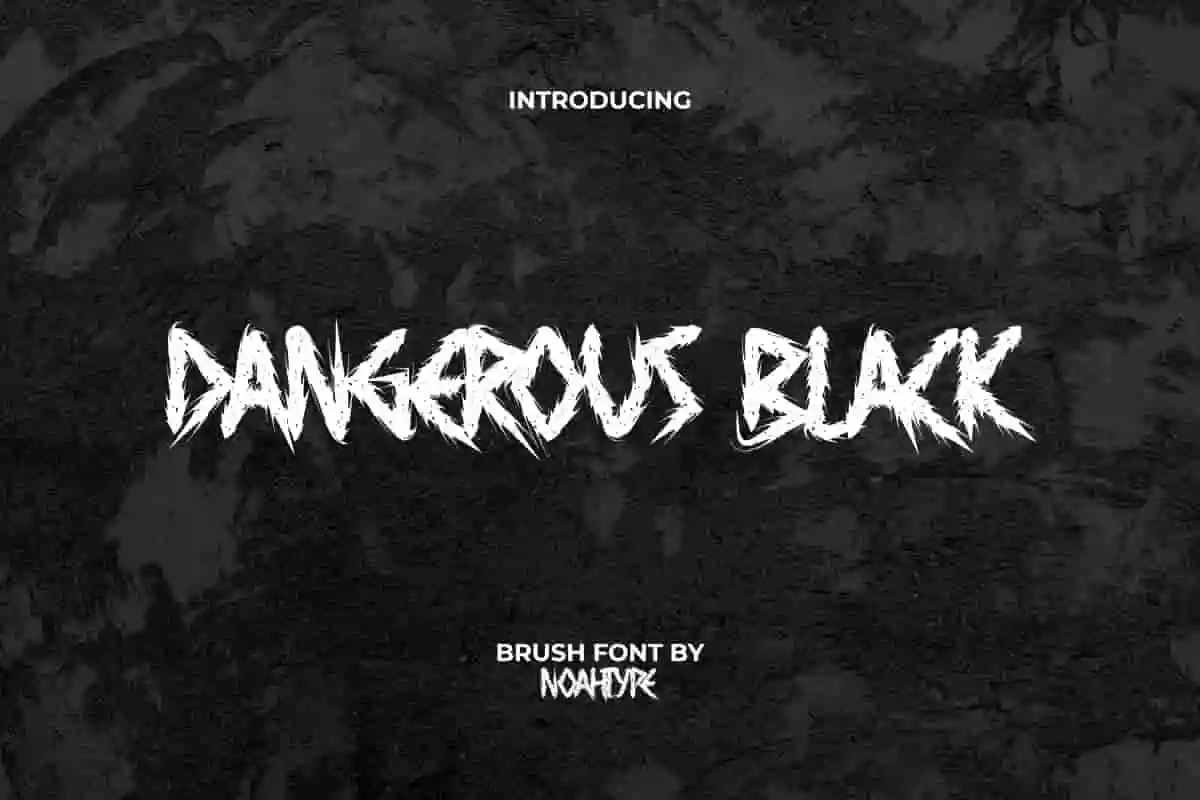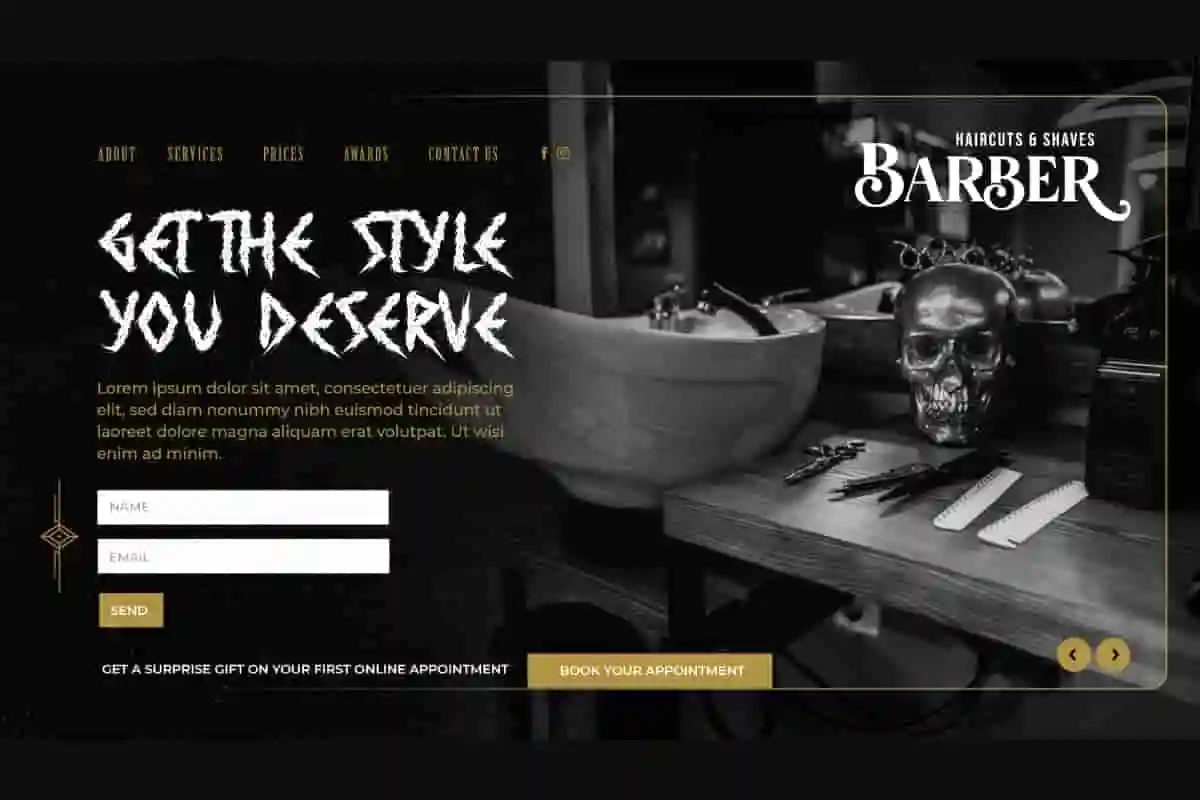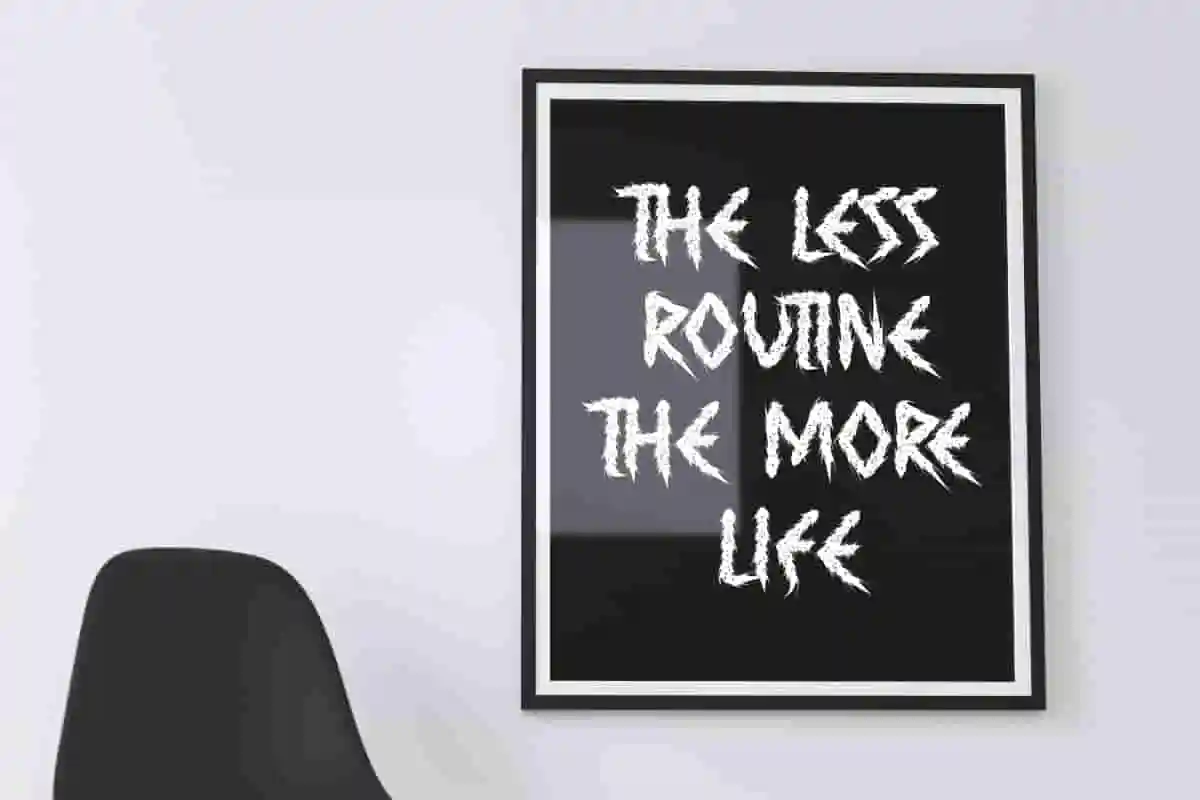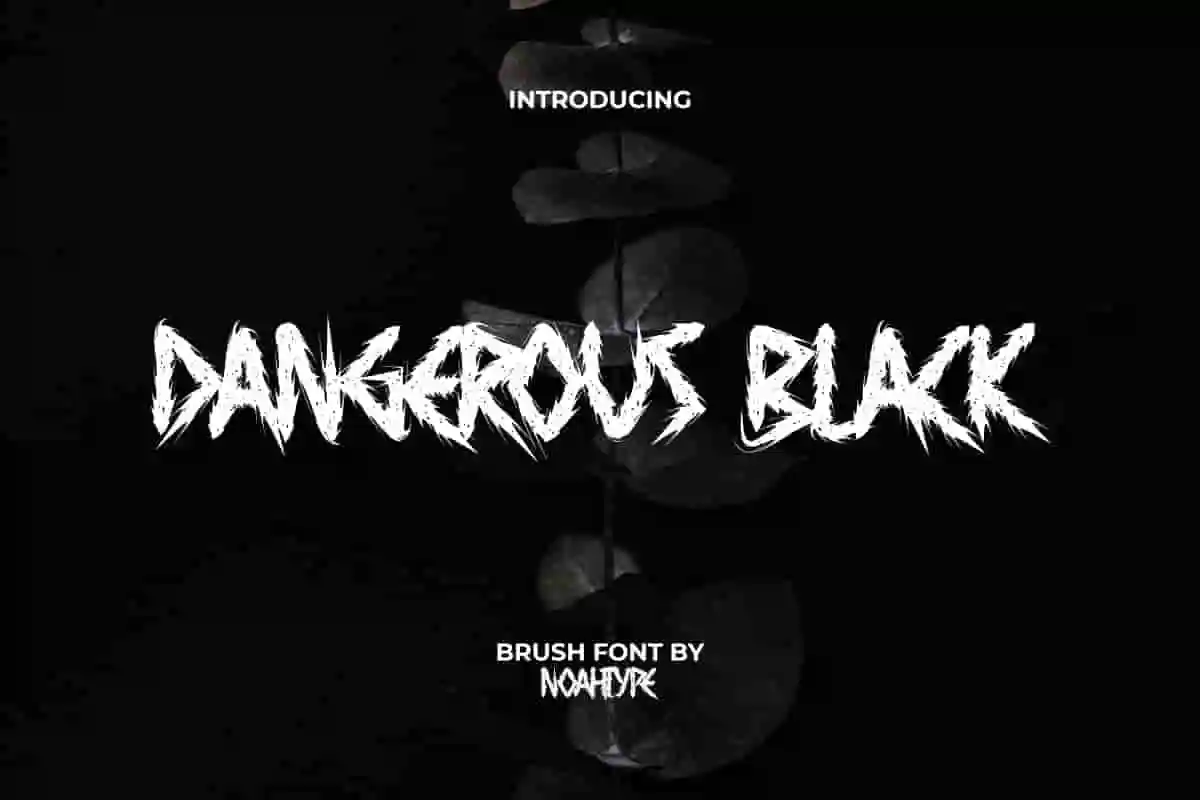
Dangerous Black Font is a terrify hardcore metal brush decorative font with mysterious style by NoahType. This font has a brush-made appearance with sharp angular strokes so that the horror feel becomes more pronounced. It will be perfect for any designs, such as brand image, cover, custom design, invitation, label, marketing material, menu, poster, printing, product packaging, quotes, signage, stationery, website, and many more!
Dangerous Black Font includes full set of ALL CAPS for Uppercase and Lowercase Basic Characters, Numerals, Punctuation, and Symbol. The characters of this font will give awesome touch and also a perfect choice for many industries, such as accessories, advertising, art, café, event and festival, fashion, game, movie, printing, publishing, etc.